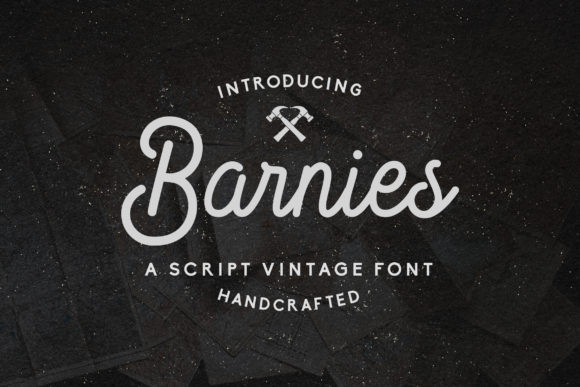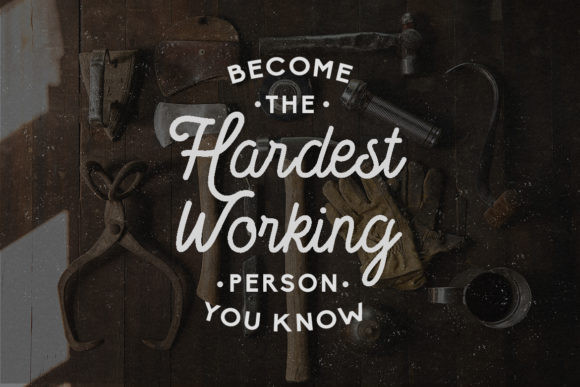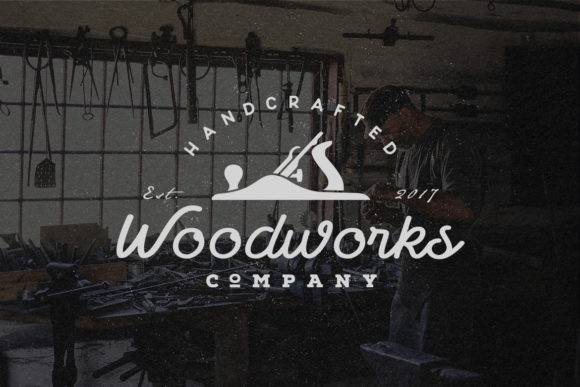
Barnie’s Font
Barnies is a vintage styled script font. It has a neat feel and an amazing, yet striking touch. It’s perfect for adding a natural feel to your branding materials, t-shirts, prints, business cards, logos, posters, and much more!